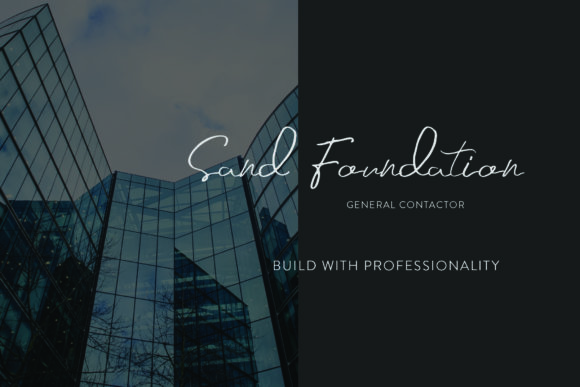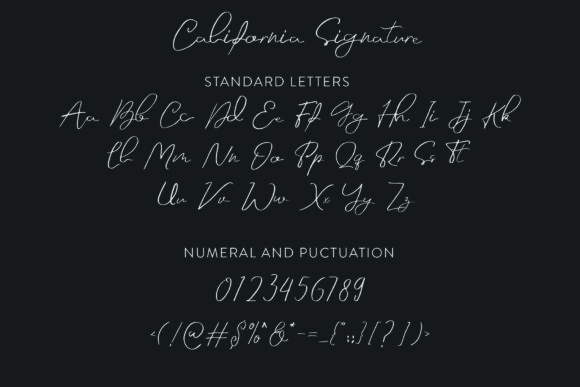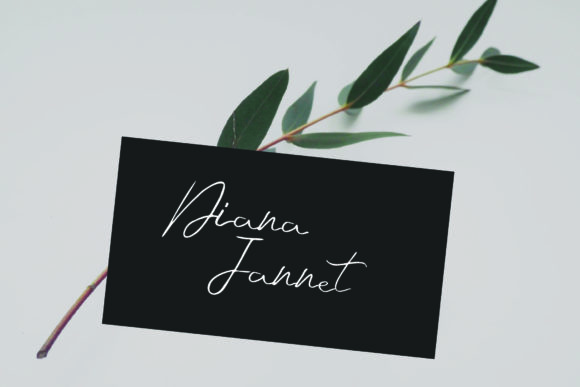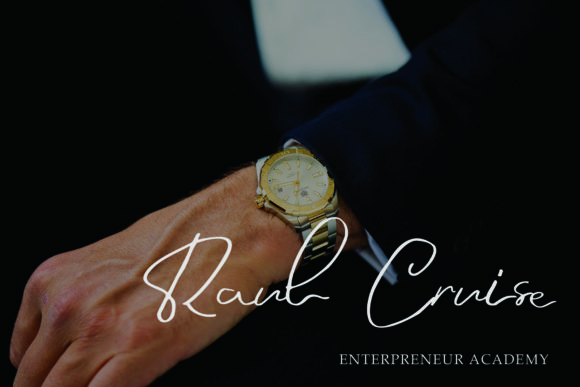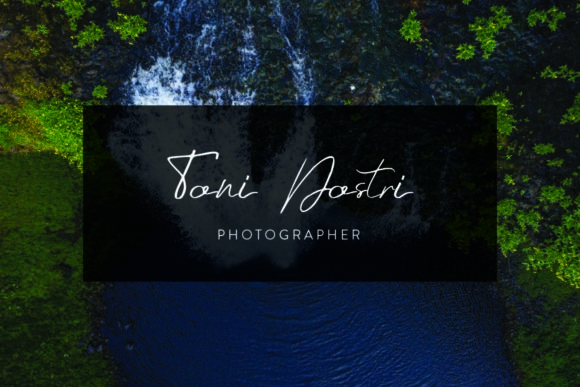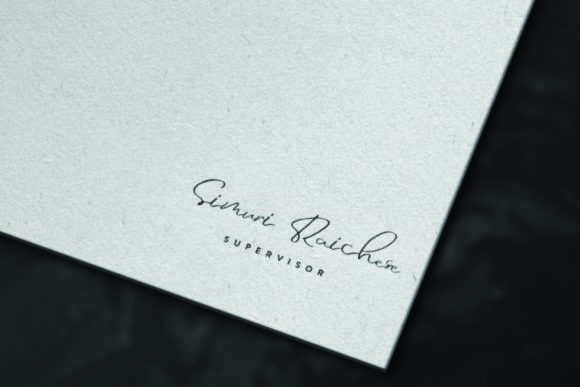
Discover the Allure of the California Signature Font
There’s something magical about the moment when a design comes together, and you know you’ve created something special. Maybe it’s the perfect balance of colors, or the way a font seems to dance across the page. For designers, this feeling is what drives us to keep pushing the boundaries of creativity. And that’s exactly what the California Signature Font is designed to evoke – a sense of effortless elegance and sophistication.
With its clean, thin, and smooth vibe, the California Signature Font is the perfect addition to any design project. Whether you’re working on a branding campaign, a wedding invitation, or a social media post, this stylish script font is sure to add a touch of California cool to your work. And as a designer, you know how valuable it is to have a versatile font that can be used across multiple platforms and styles.
By incorporating the California Signature Font into your designs, you’ll be able to create a consistent and recognizable visual identity that will set your brand apart from the rest. So why settle for a generic font when you can have a signature look that screams California style and sophistication?
- Unique Characteristics: The California Signature Font features a unique blend of modern and classic elements, with a touch of elegance and sophistication.
California Signature Font Review
Overall, I found the California Signature Font to be a visually appealing option for any design project. ✨ The font’s unique blend of modern and vintage elements creates a distinctive look that can add a touch of California cool to any layout. ✨ The font is also highly legible, making it suitable for a wide range of applications, from body text to headlines.
Here are some specific things that work well with this font:
- ✨ Unique aesthetic: The California Signature Font’s blend of modern and vintage elements makes it stand out from more generic fonts.
- ✨ High legibility: The font is easy to read, even at smaller font sizes.
- ✨ Versatility: The font can be used for a wide range of applications, from body text to headlines.
However, I did encounter a few limitations:
- ⚠️ Limited font sizes: The font can become somewhat distorted at very small font sizes.
- ⚠️ Limited support for non-English languages: The font may not support non-English languages as well as other fonts.
Overall, I would recommend the California Signature Font for any design project that requires a unique and visually appealing look. However, be aware of the limitations mentioned above and test the font thoroughly before committing to a large-scale project.
Getting the Most Out of the California Signature Font
To get the most out of the California Signature Font, try using it in combination with other design elements such as bold typography, bright colors, and clean layouts.
Use the font to create eye-catching headings, titles, and subtitles that grab the viewer’s attention.
The California Signature Font is ideal for use in:
- Travel and tourism marketing
- Wellness and self-care promotions
- Summer and outdoor-themed campaigns
Alternatives to California Signature Font
Great Vibes is a modern, elegant script font that is perfect for creating a friendly and approachable feel. It’s ideal for use in logos, branding, and advertising materials where a relaxed, casual tone is desired.
Great Vibes compares to California Signature Font in that it also has a relaxed feel, but it’s more versatile and can be used in a wider range of design contexts. While California Signature Font is more suited to informal, casual designs, Great Vibes can be used in both formal and informal settings.